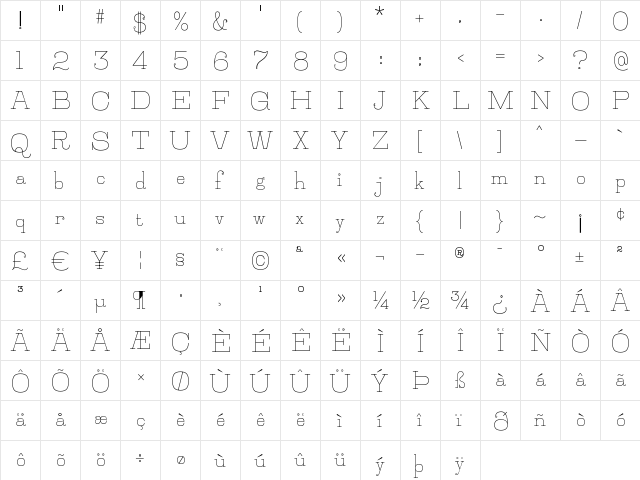
Jillsville Regular
Design Context for Jillsville Typeface
Jillsville takes a measured approach to typography — its balanced proportions and neutral character make it a reliable workhorse for both digital and print work.